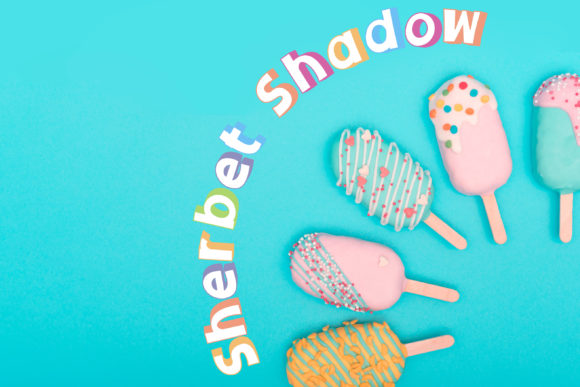
Sherbet Shadow Duo for Modern Editorial Design
Sherbet Shadow Duo in a Lifestyle Blog Header
As I sat down to redesign the header of my lifestyle blog, I knew I needed a font that would feel both fresh and familiar. Sherbet Shadow Duo, with its unique look, immediately caught my eye. It’s a display font that brings a soft, playful energy to any layout. The subtle shadows and rounded edges gave it a warm, approachable vibe—perfect for a blog that focuses on wellness, travel, and everyday inspiration.
I tested Sherbet Shadow Duo against several other display fonts, but none matched the rhythm and mood I was looking for. It had just the right amount of character without overwhelming the reader. Its visual appeal made it ideal for headlines, while still being legible enough for short subheadings and callouts.
Sherbet Shadow Duo for Recipe Ebook Covers
When creating a recipe ebook, the cover is more than just an image—it's a promise of what's inside. For my latest project, I wanted something that felt inviting and a bit whimsical. Sherbet Shadow Duo became the centerpiece of the cover design. Its full-color nature allowed me to experiment with color gradients and subtle effects that brought the title to life.
The font’s personality perfectly aligned with the tone of the book: light, cheerful, and easygoing. I paired it with a clean sans serif font for the subtitle and body text, which created a strong visual hierarchy. This combination helped guide the reader’s eye from the bold title to the supporting details, making the cover both eye-catching and functional.
Sherbet Shadow Duo in a Wedding Guide Layout
A wedding guide requires a balance between elegance and warmth. When I was designing a printable wedding guide for a client, I wanted a font that could carry that dual message. Sherbet Shadow Duo fit the bill beautifully. Its unique look added a touch of sophistication, while the soft curves and shadow effects gave it a romantic feel.
I used Sherbet Shadow Duo for section titles, like “The Perfect Venue” and “Catering Tips,” and found that it worked well across various formats—from digital PDFs to printed handouts. The font maintained its clarity even when scaled down, which was essential for smaller headings and pull quotes throughout the guide.
Sherbet Shadow Duo for Newsletter Graphics
Newsletter headers need to be engaging without being distracting. For a recent email campaign focused on productivity tips, I experimented with Sherbet Shadow Duo as the main headline font. Its display style made the title stand out against a minimalist background, drawing the reader’s attention immediately.
What I loved most about using Sherbet Shadow Duo in this context was how it balanced creativity with readability. Even though it’s a display font, it didn’t feel too ornate or difficult to read. I also appreciated the flexibility it offered—whether I used it for the subject line, the opening headline, or a featured quote, it always looked intentional and polished.
Sherbet Shadow Duo in a Coaching Workbook
Designing a coaching workbook involves a lot of thought about structure and engagement. I chose Sherbet Shadow Duo for the chapter openers and key takeaways because it brought a sense of calm and focus to each section. The font’s rhythm made it easy to scan, and its unique look helped differentiate important content from the rest of the text.
For longer sections, I paired it with a readable serif font, ensuring that the visual contrast supported the reading experience. This approach helped maintain consistency throughout the workbook while keeping the design visually interesting and not monotonous.
Sherbet Shadow Duo for Digital Magazine Covers
Magazines thrive on strong typography, and Sherbet Shadow Duo proved to be a great choice for a digital magazine I was working on. Its full-color nature allowed for creative experimentation with gradients and overlays, which enhanced the overall aesthetic of the cover.
I used Sherbet Shadow Duo for the main title and secondary taglines, and the results were impressive. The font’s versatility shone through as it adapted well to different sizes and formats, whether it was a mobile-friendly version or a high-resolution print-ready layout. It truly felt like the perfect match for a publication that aimed to be both stylish and accessible.
Sherbet Shadow Duo in Branding and Packaging Design
Brand identity often starts with typography, and Sherbet Shadow Duo has become a favorite for branding projects. Whether it’s a logo, packaging label, or promotional material, the font adds a distinctive flair that sets the brand apart. Its unique look makes it especially effective for industries that value creativity and individuality.
In one branding project, I used Sherbet Shadow Duo for a boutique stationery line. The font’s softness and elegance complemented the brand’s mission of providing beautiful, handmade products. It was a seamless addition to the overall design language, reinforcing the brand’s identity without feeling forced or overdone.
Sherbet Shadow Duo has become a go-to font for editorial projects that demand both style and substance. Its ability to adapt to different contexts—from blog headers to wedding guides—makes it a versatile tool for any designer or content creator looking to elevate their work.